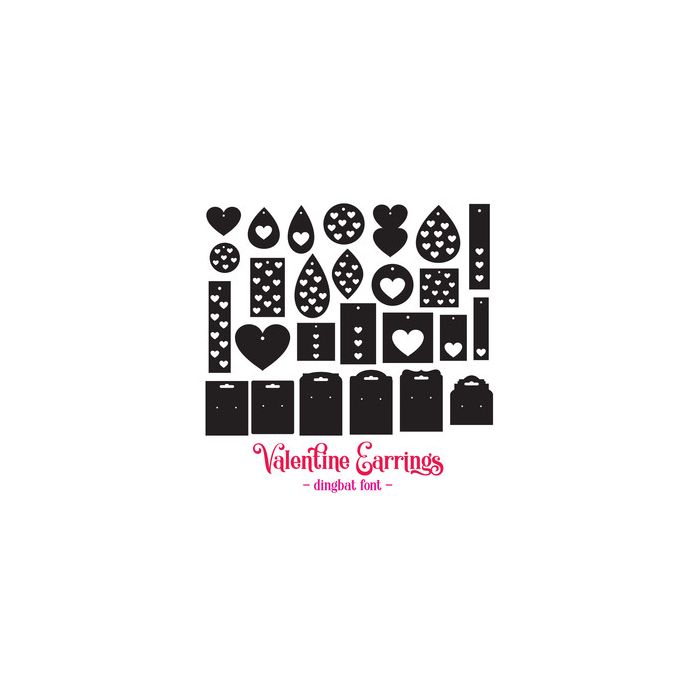
Valentine Earrings Dingbat Font. Contains 20 individual earring elements that can be used alone or layered and 6 earrings backer cards with euroslot at the top. All can be accessed via glyphs. My other fonts can be found in the Silhouette store. For more design ideas, coordinating designs & products and inspiration, please visit my blog or website.